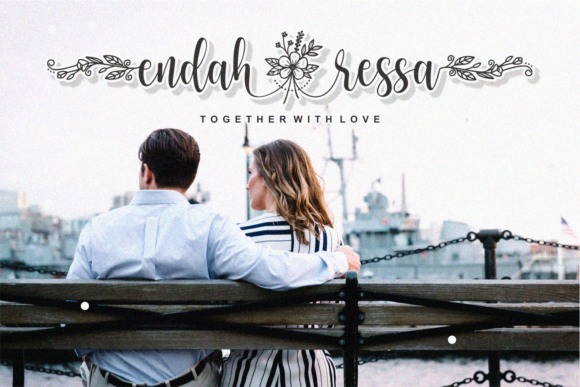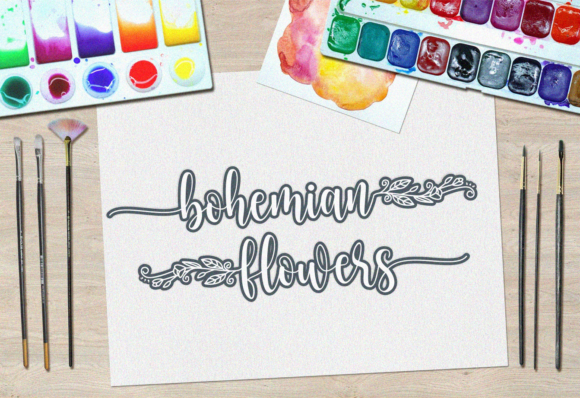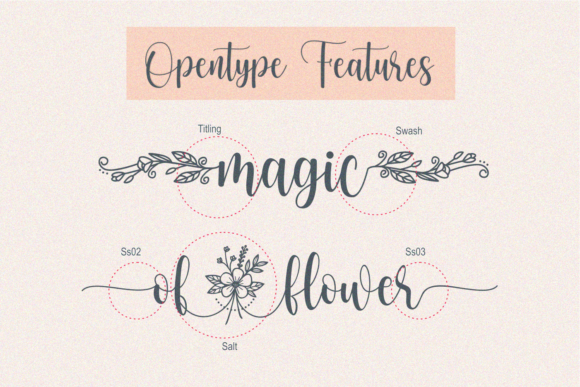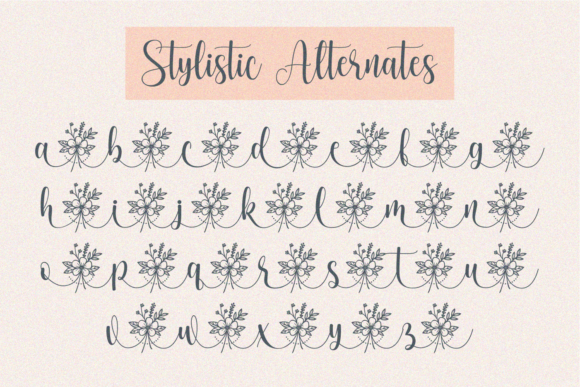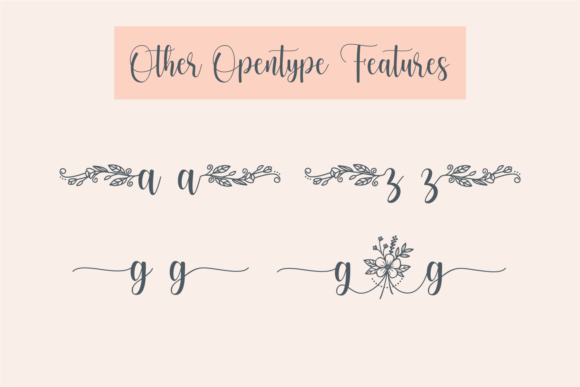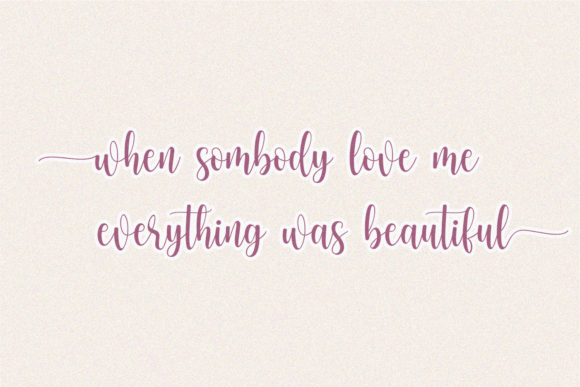
Introducing Dear Flora Font: A Beautifully Handwritten Script with Floral Charm
Are you looking for a font that exudes romance, elegance, and whimsy? Look no further than Dear Flora, a stunning handwritten script font that features beautiful flowers as ornaments. This gorgeous font is perfect for a variety of design projects, from invitation cards and logos to business cards, crafts, and more.
What Makes Dear Flora Font So Special?
Dear Flora is a flowing, romantic, and elegant handwritten font that is sure to capture the hearts of designers and crafters alike. Its unique and intricate design features beautiful flowers and swashes, making it perfect for creating stunning and eye-catching designs. Whether you’re looking to create a beautiful wedding invitation, a charming logo, or a delightful brand identity, Dear Flora is the perfect choice.
Key Features of Dear Flora Font
• Beautifully Handwritten Script: Dear Flora features a beautifully handwritten script that is both elegant and whimsical.
• Floral Ornaments: The font features beautiful flowers as ornaments, adding a touch of romance and charm to any design.
• PUA Encoded: Dear Flora is PUA encoded, making it easy to access all of the glyphs and swashes with ease.
• Versatile: This font is perfect for a variety of design projects, from invitation cards and logos to business cards, crafts, and more.
Uses for Dear Flora Font
Dear Flora is a versatile font that can be used for a wide range of design projects, including:
• Invitation Cards: Create beautiful and elegant wedding invitations, birthday invitations, and more with Dear Flora.
• Logos and Brands: Use Dear Flora to create a charming and unique logo or brand identity for your business or product.
• Business Cards: Add a touch of elegance and sophistication to your business cards with Dear Flora.
• Crafts: Use Dear Flora to create beautiful and unique craft projects, such as handmade cards, scrapbooking, and more.
Why Designers and Crafters Love Dear Flora Font
Designers and crafters love Dear Flora for its unique and intricate design, versatility, and ease of use. The font’s beautifully handwritten script and floral ornaments make it perfect for creating stunning and eye-catching designs. Additionally, the font’s PUA encoding makes it easy to access all of the glyphs and swashes, allowing designers and crafters to get creative and experiment with different design ideas.
Tips for Using Dear Flora Font
Here are a few tips for using Dear Flora font in your design projects:
• Experiment with Different Sizes: Dear Flora looks great in a variety of sizes, from small and delicate to large and bold.
• Play with Swashes: The font’s swashes and glyphs can add a touch of elegance and sophistication to your designs.
• Combine with Other Fonts: Dear Flora pairs well with a variety of other fonts, making it perfect for creating unique and eye-catching designs.
Dear Flora font is a beautiful and versatile handwritten script font that is perfect for designers and crafters looking to add a touch of romance and elegance to their design projects. With its unique and intricate design, PUA encoding, and ease of use, Dear Flora is sure to become a favorite font in your design arsenal. So why wait? Download Dear Flora font today and start creating stunning and eye-catching designs!